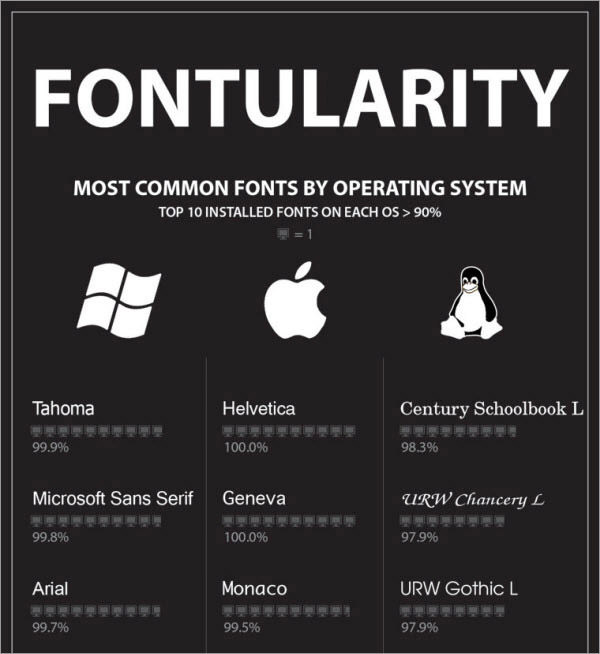
Most Common System Fonts. This font has a strong, dependable feel and is easy to read. Comic sans ms, textile, cursive.
It is available on macintosh and unix computers, and is. Heres a handy list of font stacks for window & mac browsers.! For more detailed information, check the full overview, which is also available in german.
This Font Has A Strong, Dependable Feel And Is Easy To Read.
Distributed by microsoft with its windows operating system. Common fonts for windows & mac. Times (also called times roman) is the traditional serif font.
This Bold Font Is An Excellent Choice For Chapter Titles.
It's best known for signage and when designing business forms, like invoices or receipts. These are just a few of the most common fonts you will encounter when working with type. Default korean font on apple mac os, mac os x, and ios.
19 rows 1 georgia and trebuchet ms are bundled with windows 2000/xp and they are also included in the ie font pack (and bundled with other ms applications), so they are quite common in windows 98 systems. This is the most common font on earth. The most popular fonts on typewolf.
2 Symbolic Fonts Are Only Displayed In Internet Explorer, In Other Browsers A Font Substitute Is Used Instead (Although The Symbol Font Does Work In Opera And.
Windows fonts / mac fonts / font family. It's a medium weight serif font. It is available on macintosh and unix computers, and is.